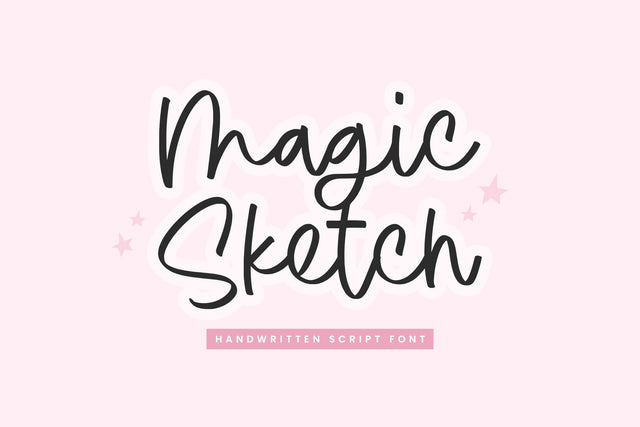
Monoline Font bundle
This pack is perfect for greeting cards, branding, business cards, quotes, posters, stickers, blogs, logos, weddings, signage, packaging, birth announcements, photo overlays, wall art, quotes, printed materials, bags, t-shirts and much more !